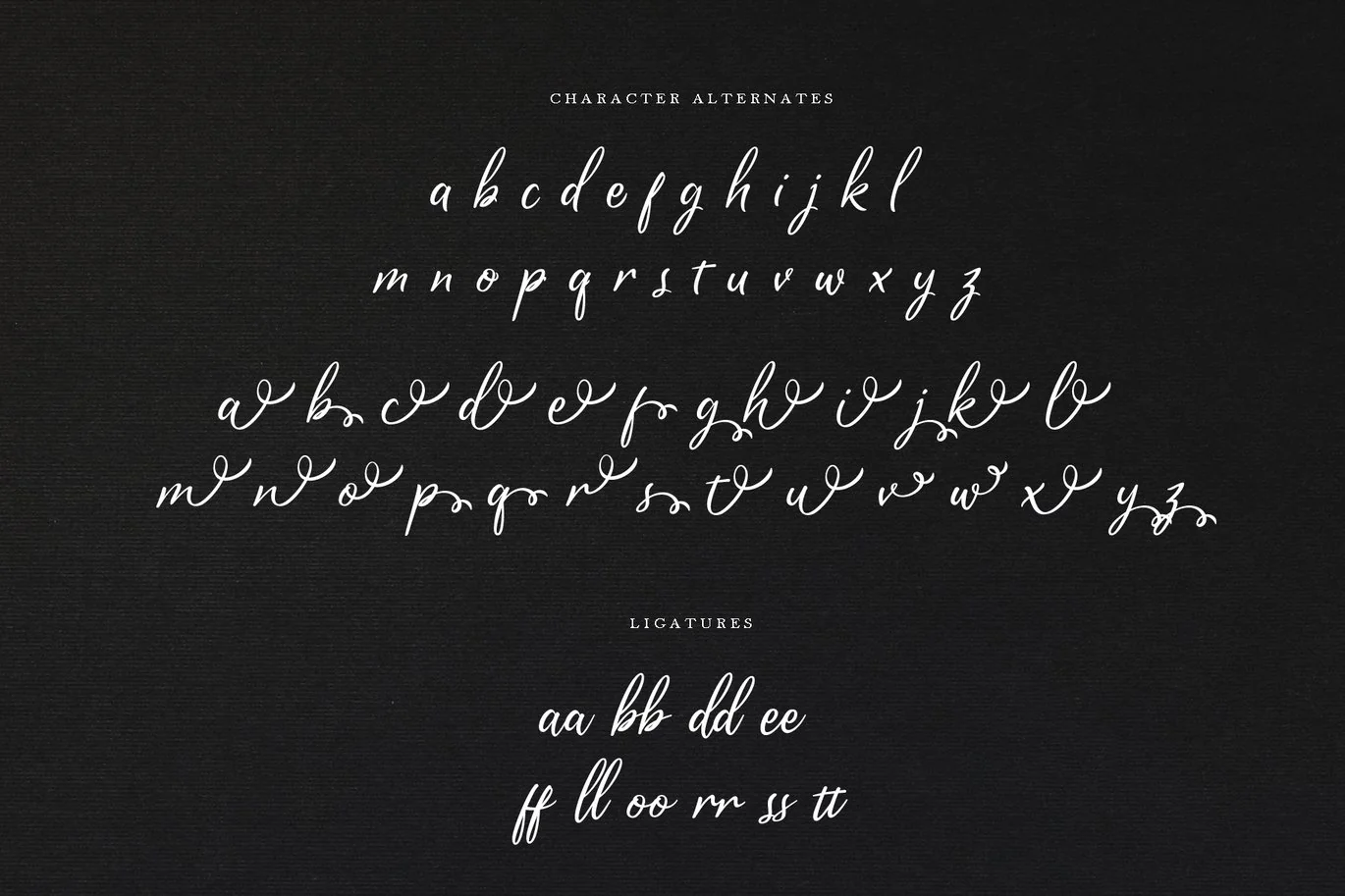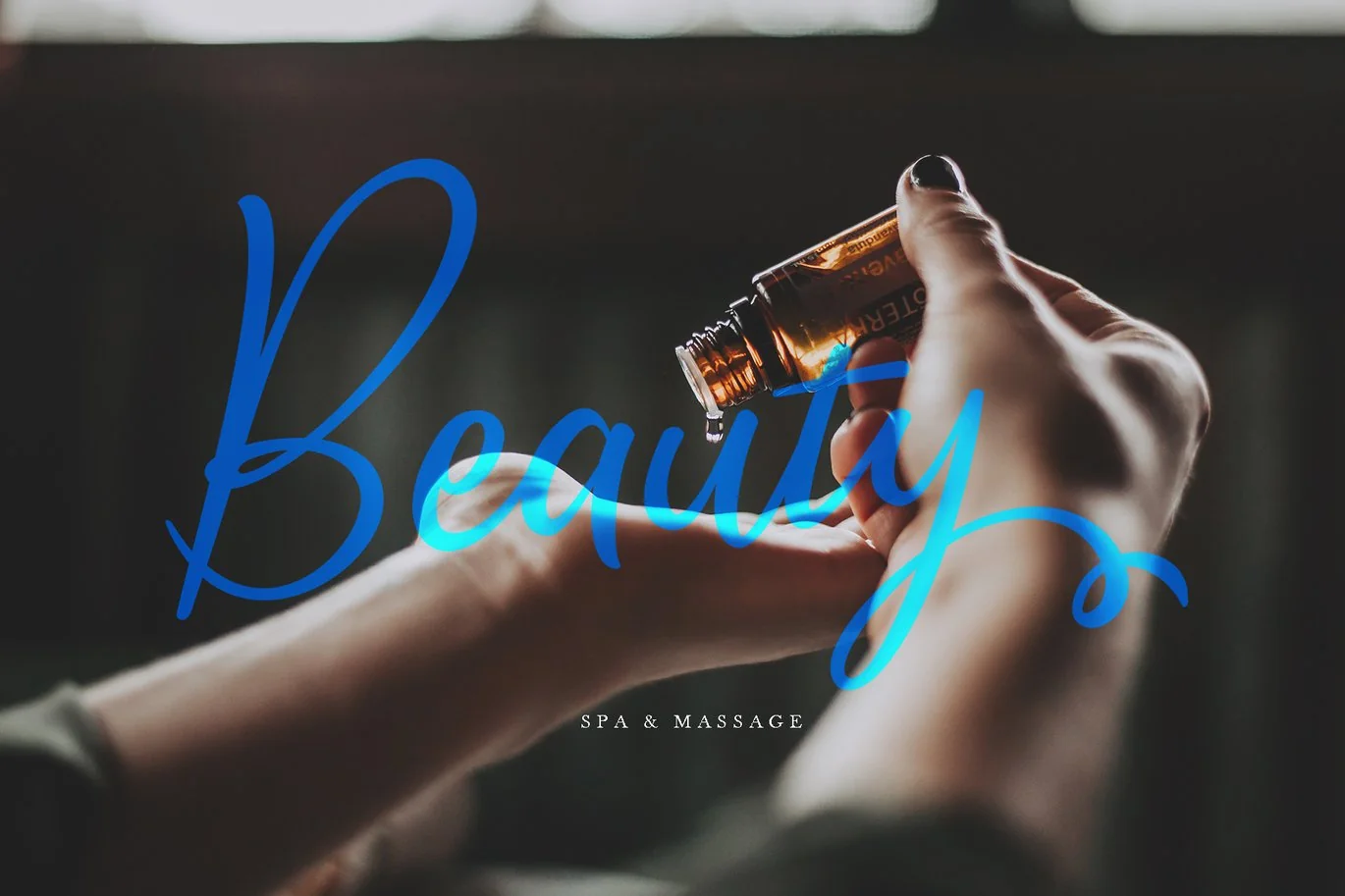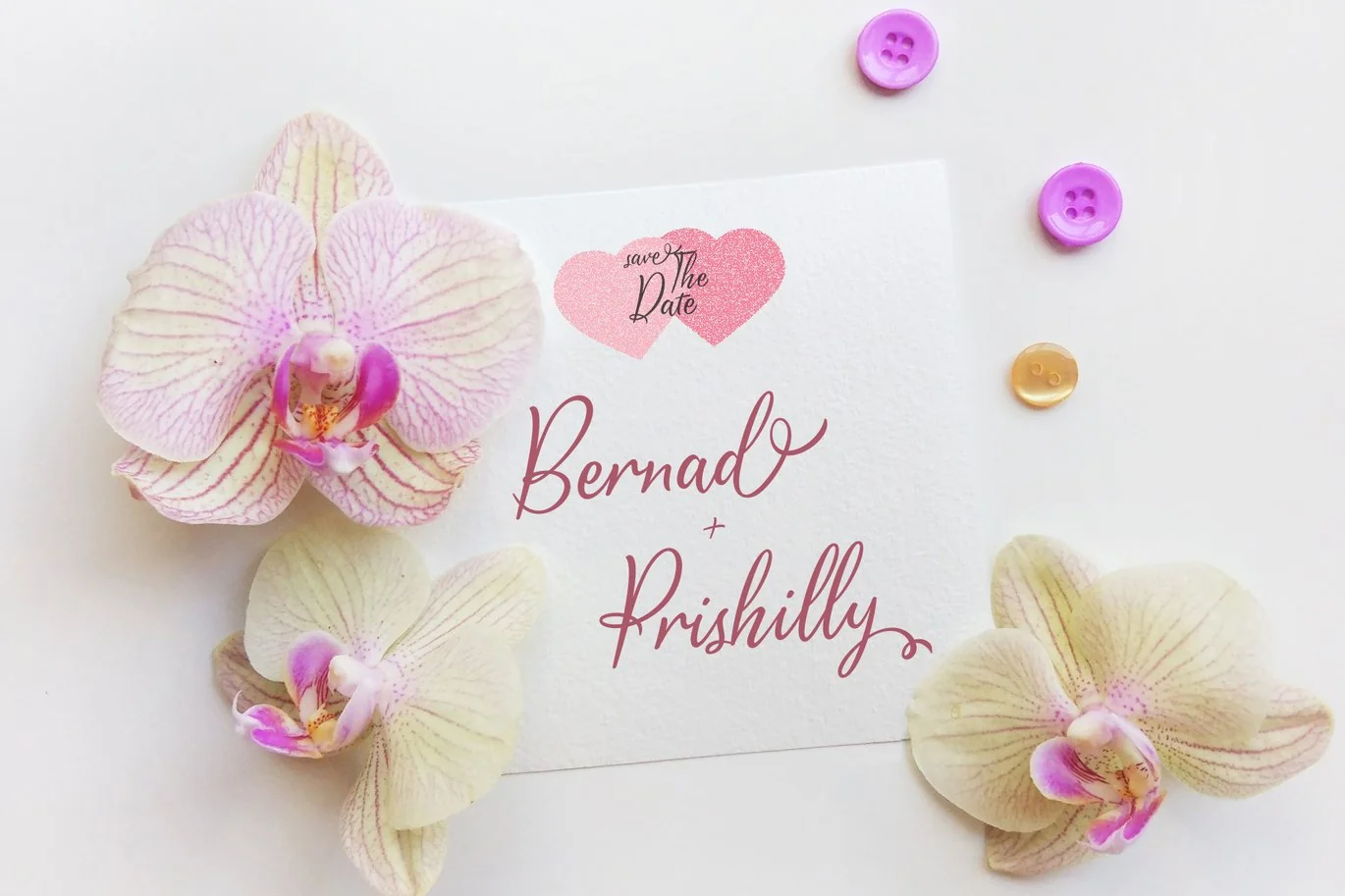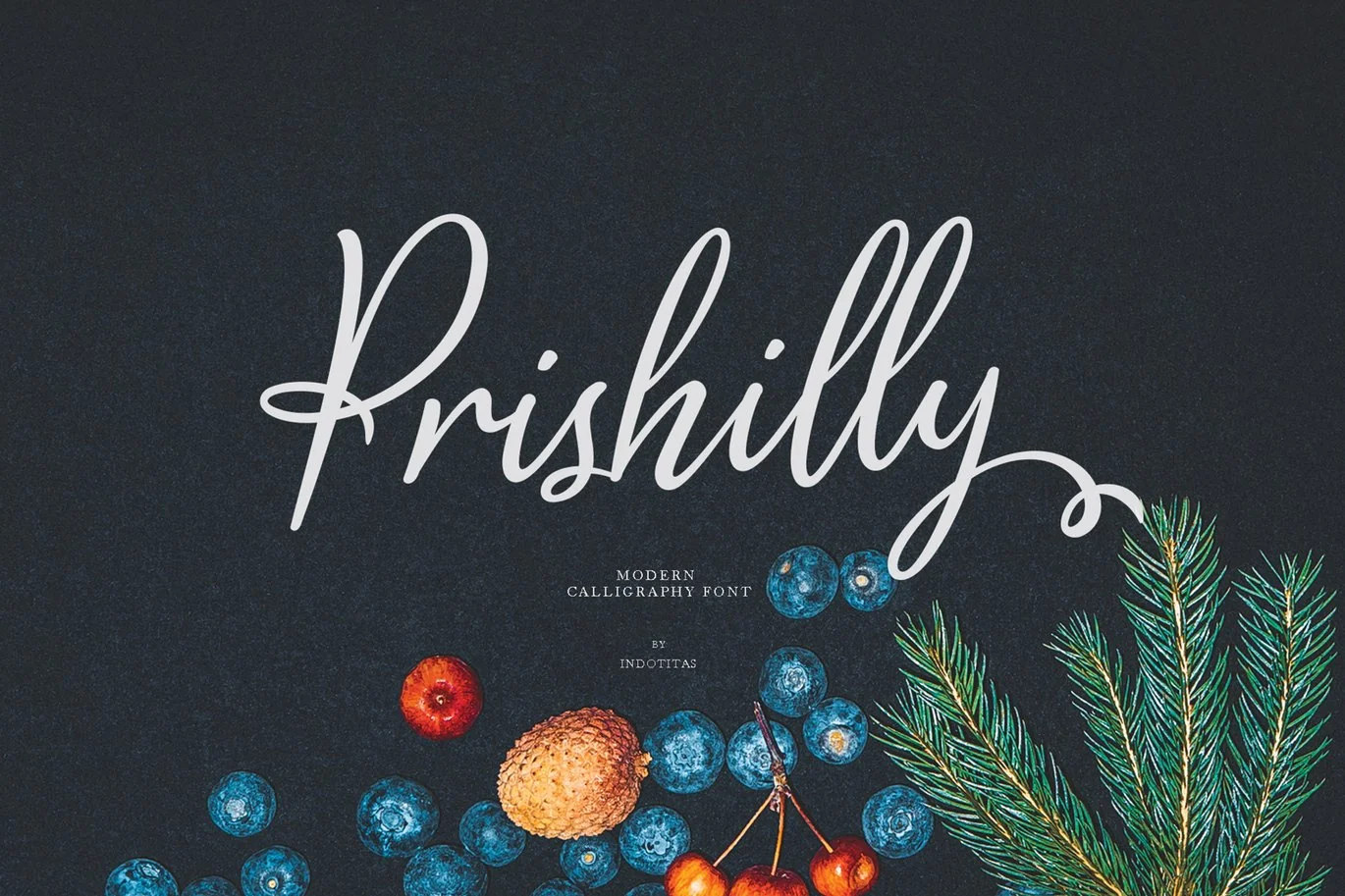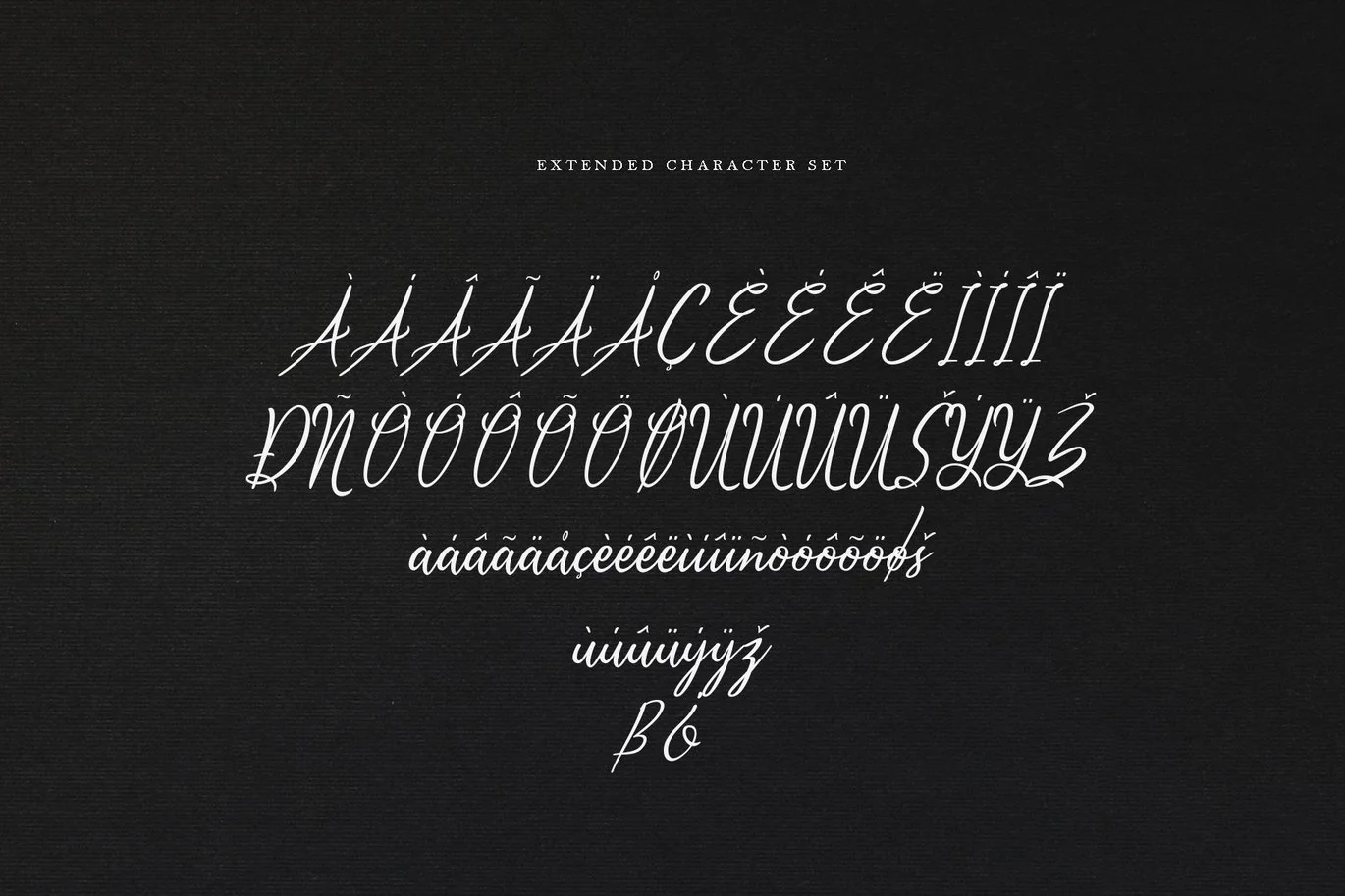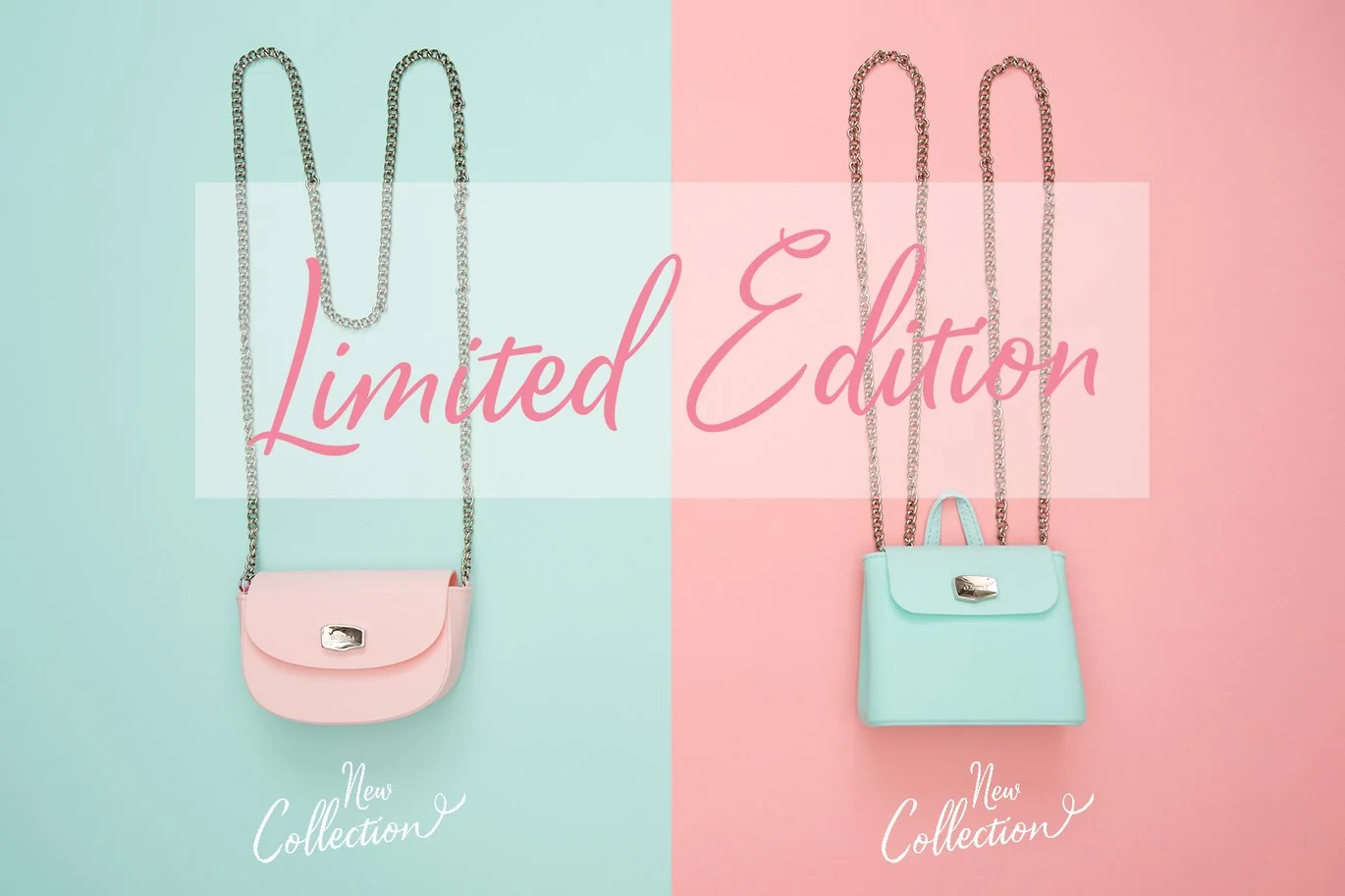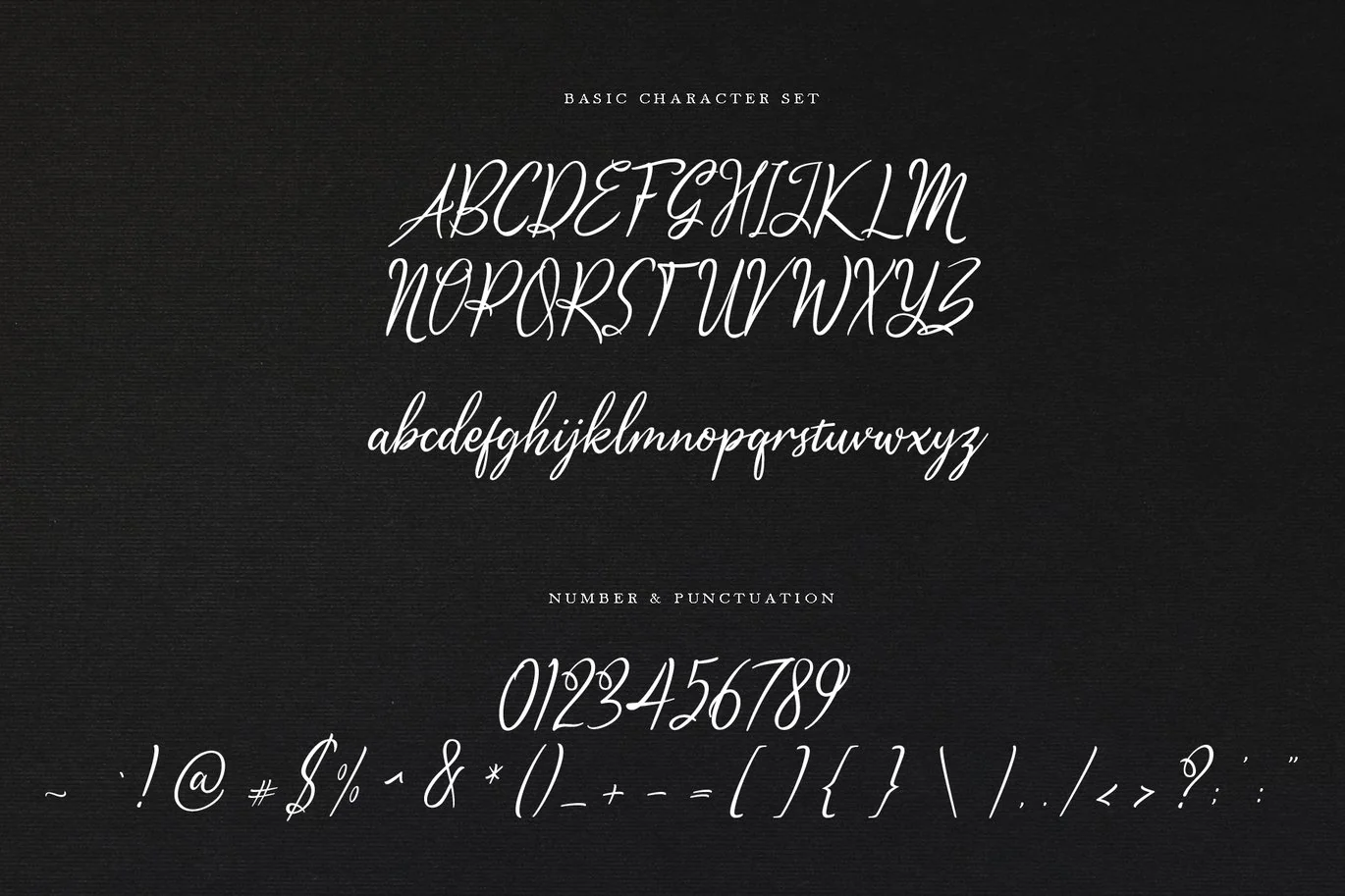
Prishilly Modern Calligraphy Font
Prishillycreated with modern calligraphy characters. This modern calligraphy font was PUA encoded.
Prishilly is a natural calligraphy style that comes with Extended Latin Characters. Prishilly works perfectly for logos, display, product branding, wedding invitation card, stationary, packaging, clothing, flyer, apparel, magazines, brochures, lable, posters, badges, etc.
Prishilly comes with 267 glyphs and 52 alternate characters contain with opentype features (supported with contextual alternates mode). Prishilly also comes with 10 extended ligatures that allowing you to make stuff looks more exclusive and pro standard.
- Symbols
- Opentype Feature
- Multingual Support